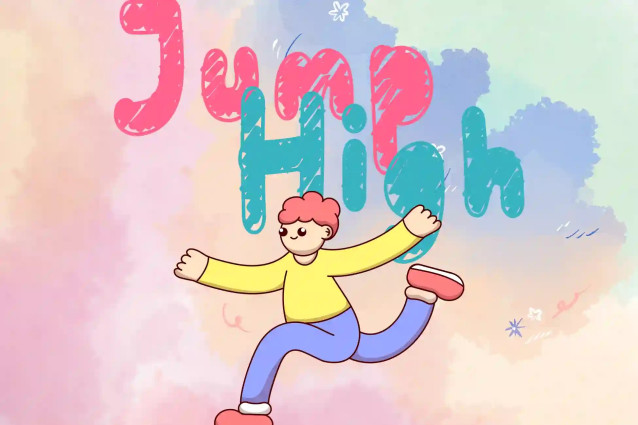
Lovas Handwritten Font is a romantic and light handwritten font, featuring lovely lettering. Use it to add an adorable feel to any crafts idea!
Designer Name: | Aditya Rezki Apriyadi, Maulana Creative |
Classification: | Handwritten Fonts, Script Fonts |